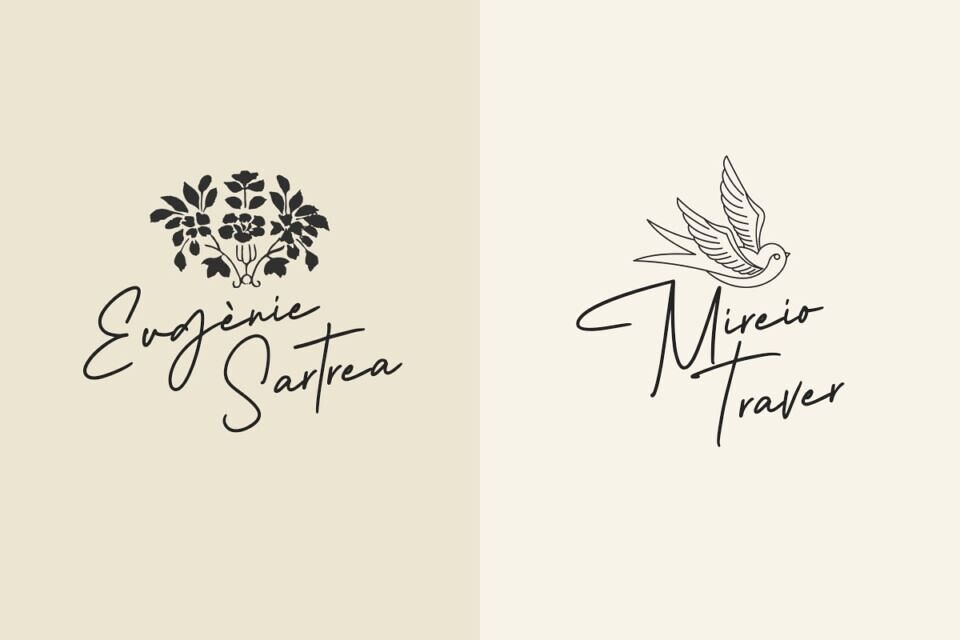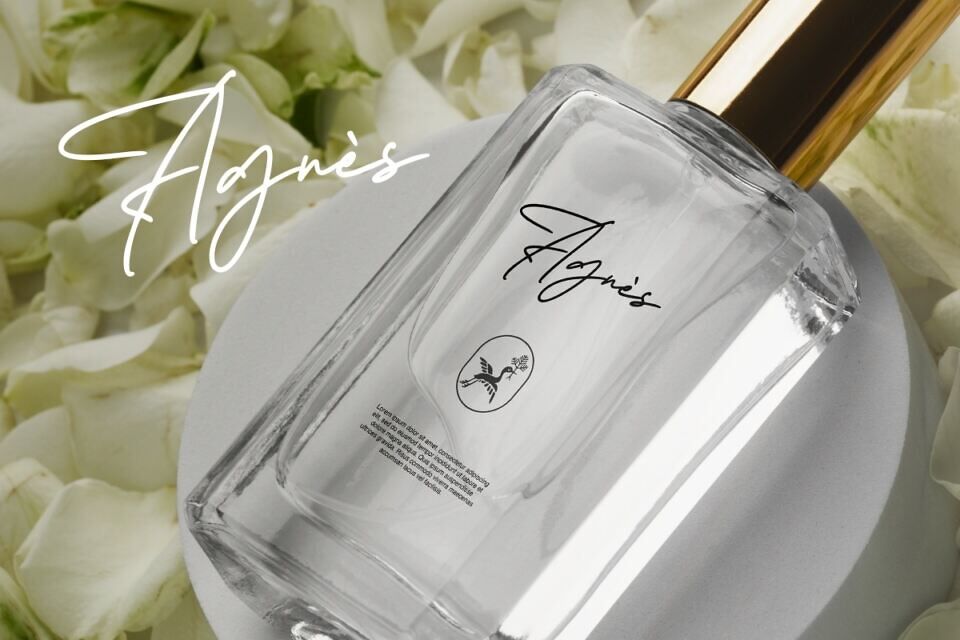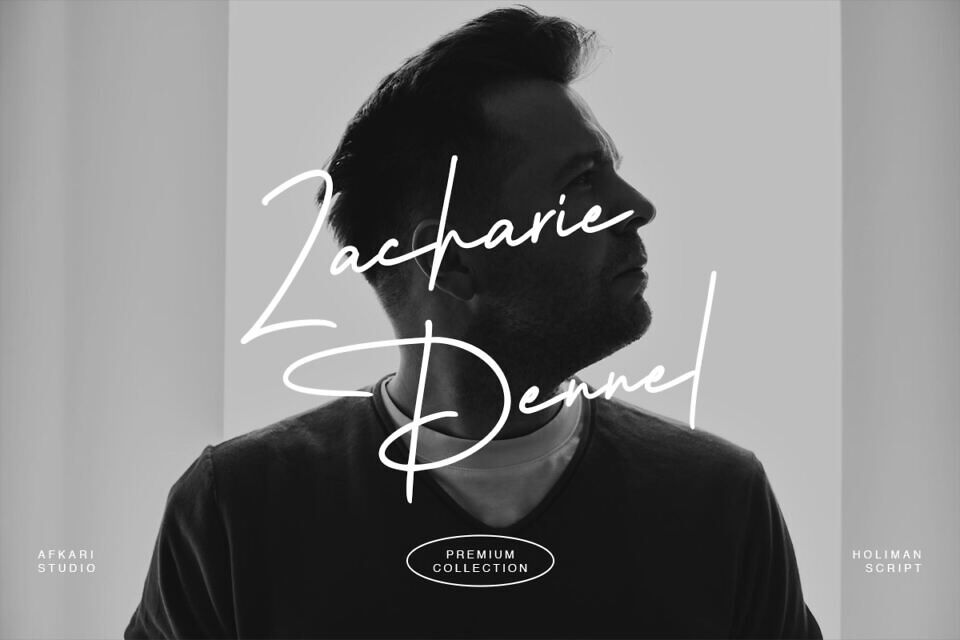
Mailman Script font exudes timeless elegance with its graceful handwritten brush strokes. This font embodies a contemporary calligraphy style that seamlessly blends sophistication and playfulness, making it the ultimate choice for elevating your branding and digital designs.